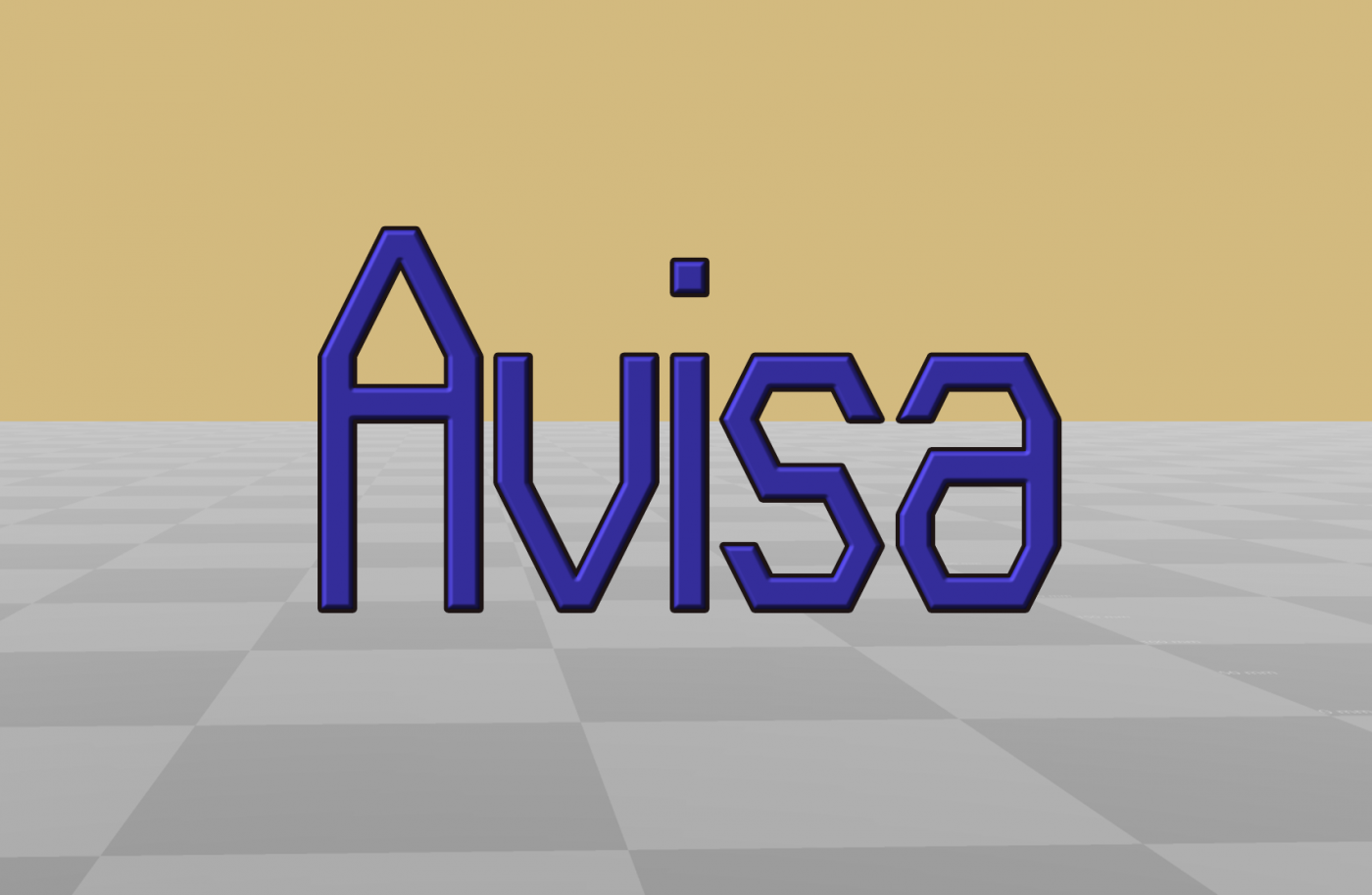
• Quick little "angular/futuristic/neo-font/OCR-like" project, more to come soon.
Quick little "angular/futuristic/neo-font/OCR-like" project, more to come soon.
Just realized it's also very hexagonal, although this was not my original intention. Could possibly work well for beehive-themed font usage situations.